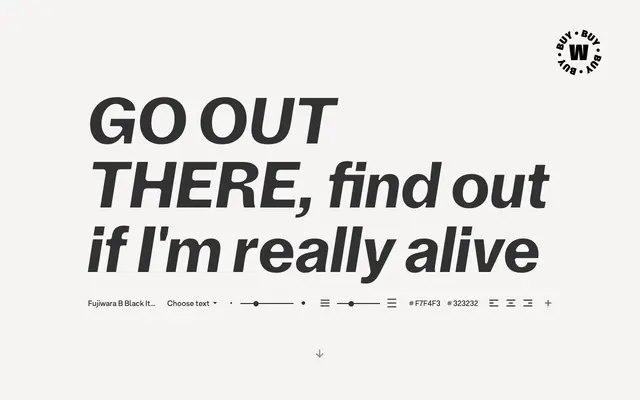
Fujiwara
A neo-grotesque in two subfamilies by David Súid, splitting sharp contrast and rounded counterforms across 20 styles with variable font options.
Designed by David Súid, Fujiwara draws on modern Swiss typeface proportions and adds a personal touch through two distinct subfamilies: Fujiwara A, with sharp contrast, and Fujiwara B, with rounded counterforms. Both run from Light to Black with matching italics, and each is available as a variable font. OpenType features include fractions, tabular lining figures, stylistic alternates, ligatures, case-sensitive forms and emojis.
Fujiwara is explicitly described as a neo-grotesque, drawing on modern Swiss typeface proportions. It splits into two subfamilies: a sharp-contrast cut (A) and a rounded counterform cut (B), both following grotesque conventions.